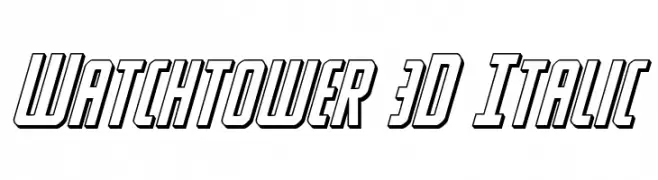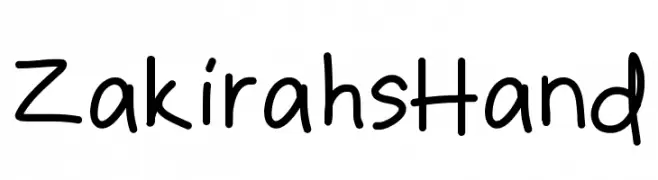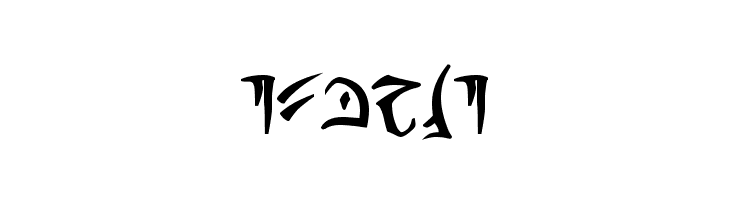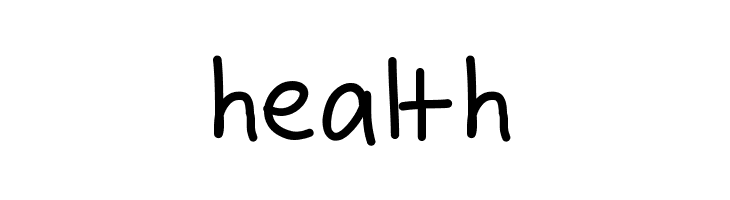
A bold, decorative font with a unique layered outline effect.
A bold, intricate font with an ancient, mystical appearance.
A playful, italicized font ideal for educational materials.
An artistic, decorative font with intricate patterns within each character.
A bold, geometric font with a futuristic and blocky design.
A bold, italic, 3D font with a modern and dynamic style.
A playful, casual handwritten font with rounded, marker-like strokes.
A bold, textured font with a hand-drawn, artistic style.